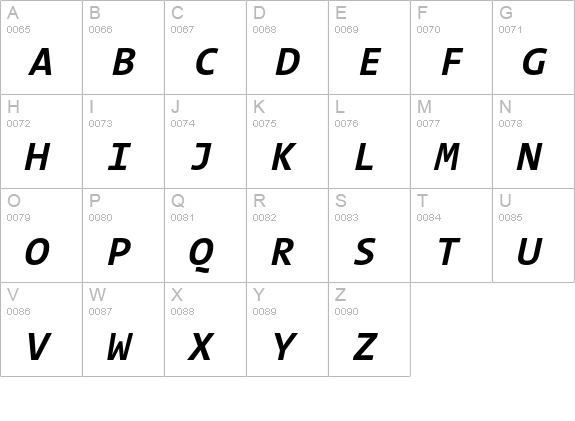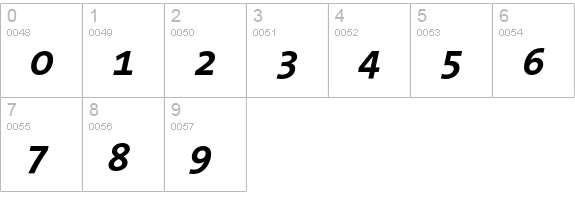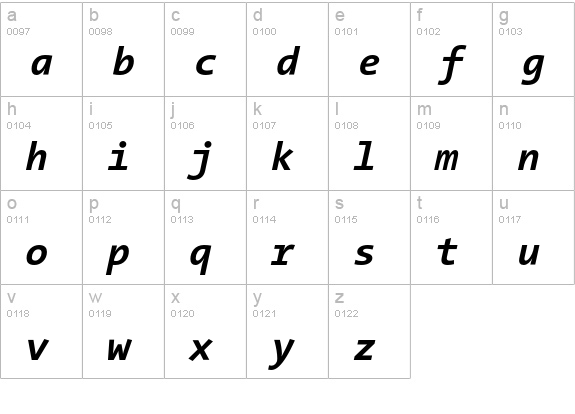
TheSansMono Bold Italic Font Details
TheSansMono Bold Italic is a strong, high-contrast, italic variant in the TheSansMono typeface family \xE2\x80\x94 well suited to headlines, attention-grabbing titles, and strong calls-to-action.
TheSansMono Bold Italic font is a stylish and versatile typeface that exudes a sense of modernity and professionalism. Its bold and italic design adds a touch of elegance to any project, making it perfect for both print and digital mediums. This font is the ideal choice for those seeking a distinctive and eye-catching style. It is carefully crafted with precision, ensuring a clean and crisp appearance on both small and large sizes. Whether used for headlines, body text, or even logos, TheSansMono Bold Italic font effortlessly captures attention and delivers a strong visual impact. One of the standout features of this font is that it is freely available to download at FontsMarket.com. This means that you can easily access and install it on your computer without any cost. With this accessibility, you can explore its creative potential in various design projects without breaking the bank. TheSansMono Bold Italic font is designed with legibility in mind, making it a practical choice for any project that requires clear and readable text. Its balanced letterforms and spacing ensure that each character is easily distinguishable, allowing readers to effortlessly consume the content. Whether you are designing a website, creating marketing materials, or working on a personal project, TheSansMono Bold Italic font is the perfect companion. Its versatility and timeless appeal make it suitable for a wide range of design styles and purposes. Embrace the power of TheSansMono Bold Italic font and elevate your designs to new heights. With its bold and italic features, this font will add a touch of sophistication and professionalism to your projects. Best of all, it is freely available for download at FontsMarket.com, ensuring that you can easily access and utilize its beauty without any hassle. So why wait? Download TheSansMono Bold Italic font today and unleash your creativity!